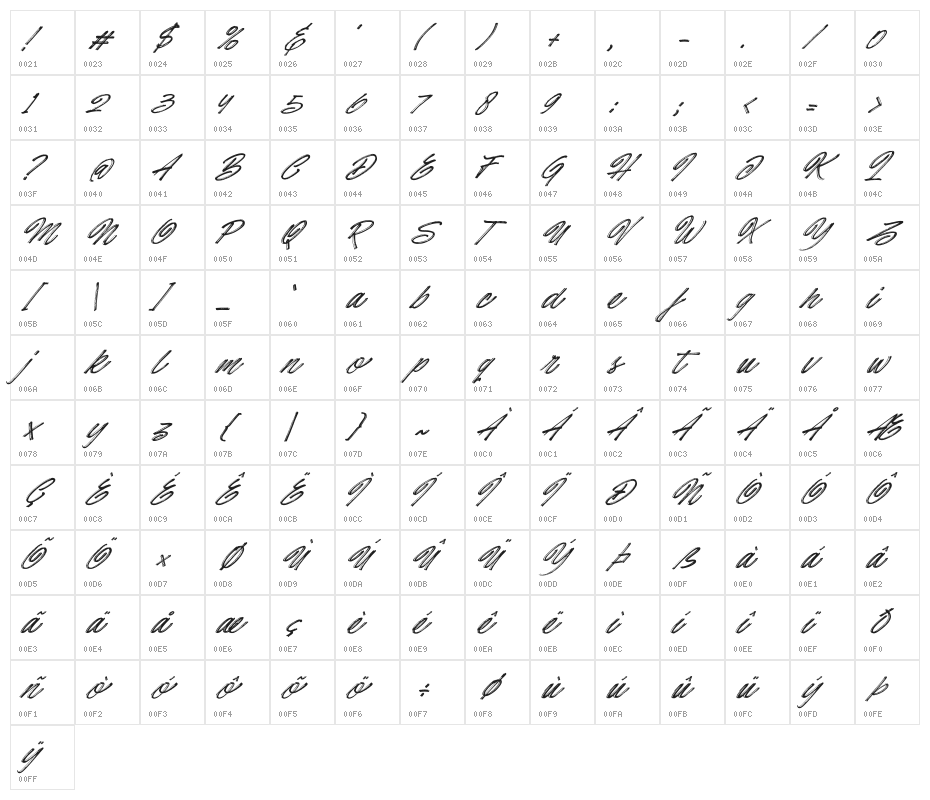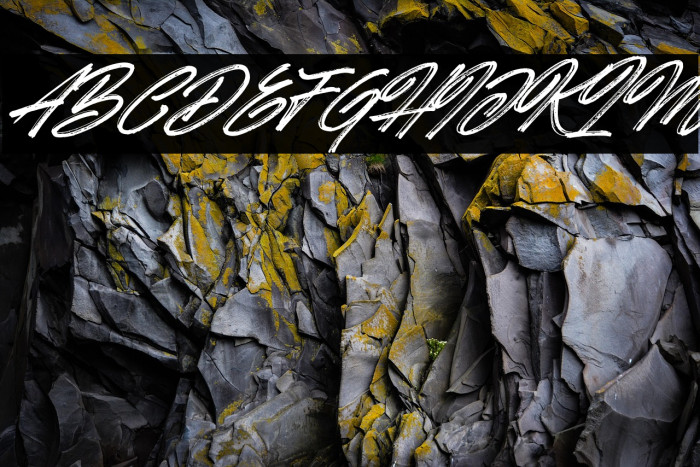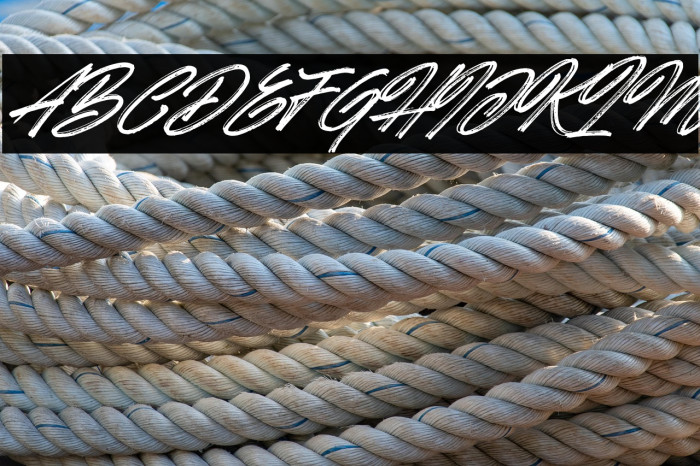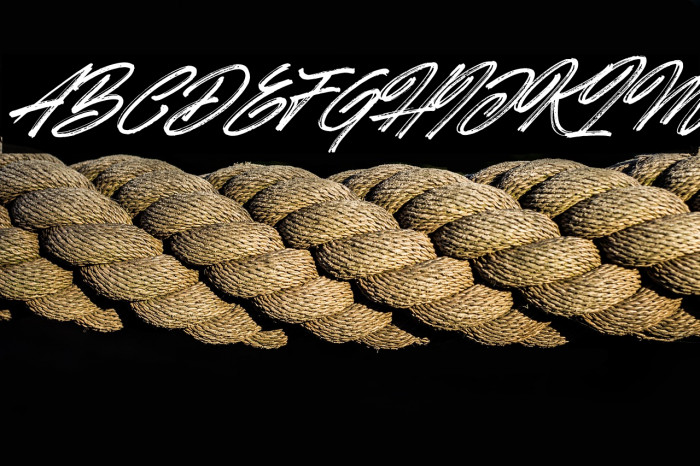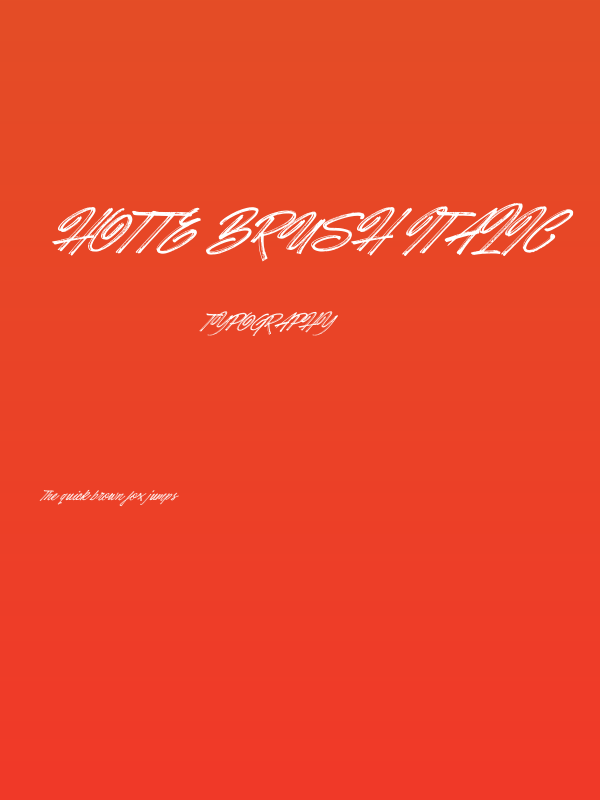
Hotte Brush Italic Font
Hotte Brush Italic Description
This font features a dynamic and expressive brush style, characterized by its fluid, cursive strokes that mimic the natural flow of handwriting. The letters are slightly slanted, enhancing the italicized appearance, and exhibit a bold, confident presence. The strokes vary in thickness, creating a high contrast that adds depth and dimension to the text. The overall design is both artistic and modern, making it suitable for creative projects. The uppercase and lowercase letters maintain a consistent style, while the numerals and special characters integrate seamlessly with the alphabet, ensuring versatility across different uses.
| Proposed Projects | Ideal for branding, posters, invitations, and any project requiring a personal, artistic touch. |